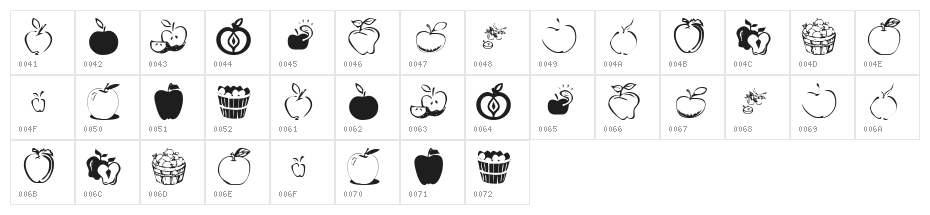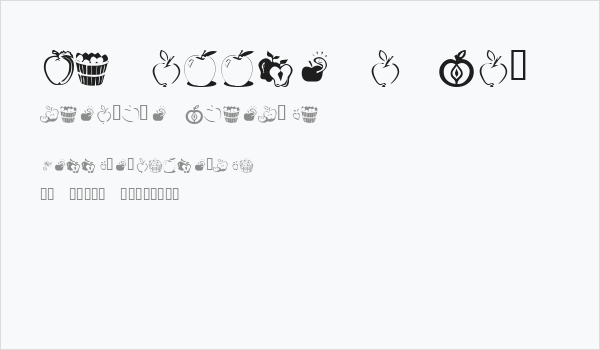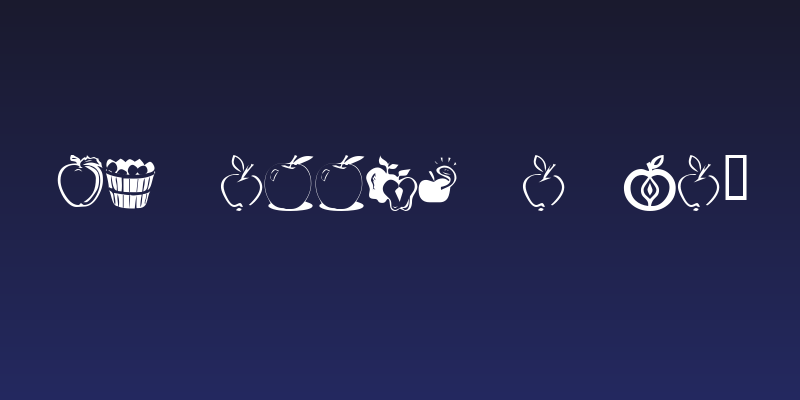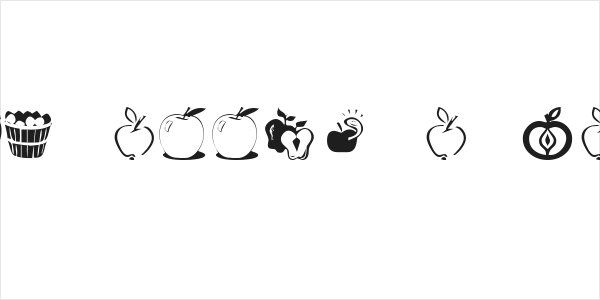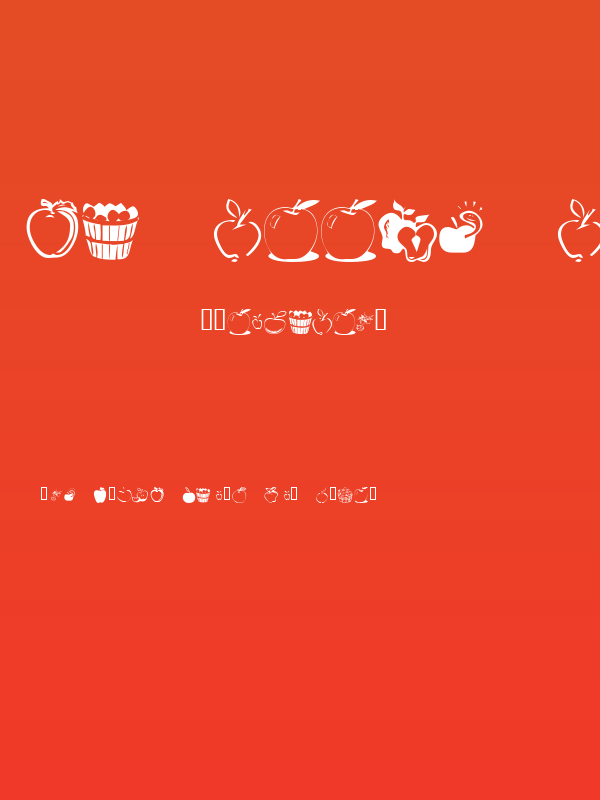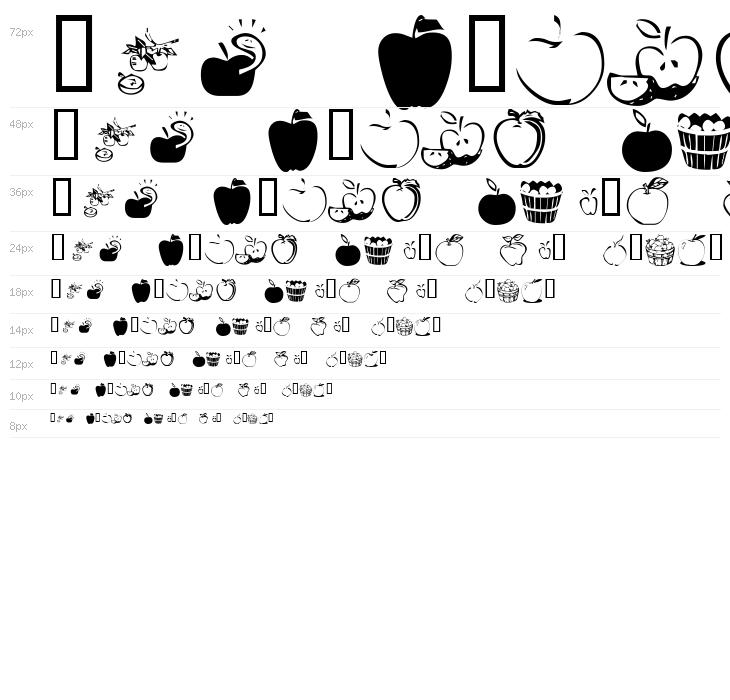
KR Apple A Day Font
KR Apple A Day Description
This collection of apple-themed icons features a variety of stylized apple illustrations, ranging from simple outlines to more detailed and filled designs. Each icon presents a unique take on the apple motif, incorporating elements like leaves, baskets, and different apple shapes. The designs are bold and playful, making them suitable for creative projects that require a touch of whimsy and nature-inspired elements. The icons are presented in black and white, emphasizing their versatility and adaptability to different design needs.
| Use Case | Logos, Illustrations, Branding |
| Proposed Projects | Ideal for use in educational materials, food-related branding, children's books, and seasonal promotions. |